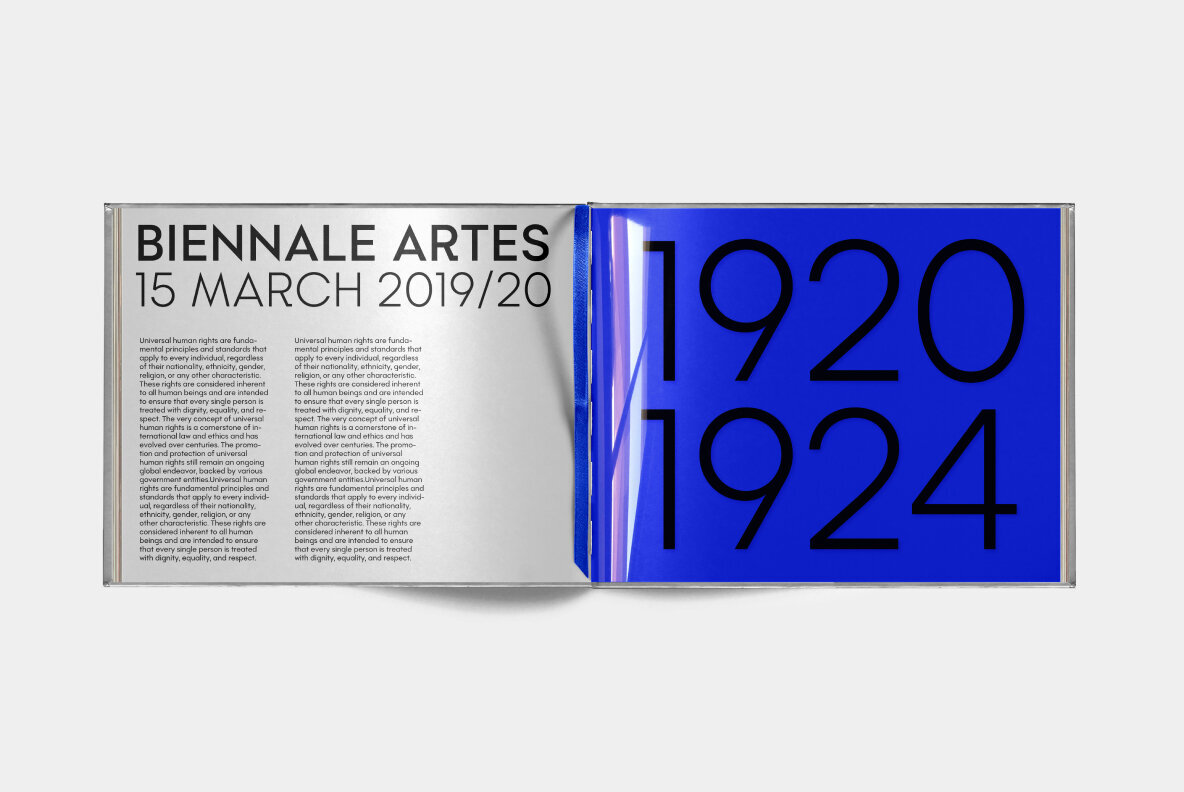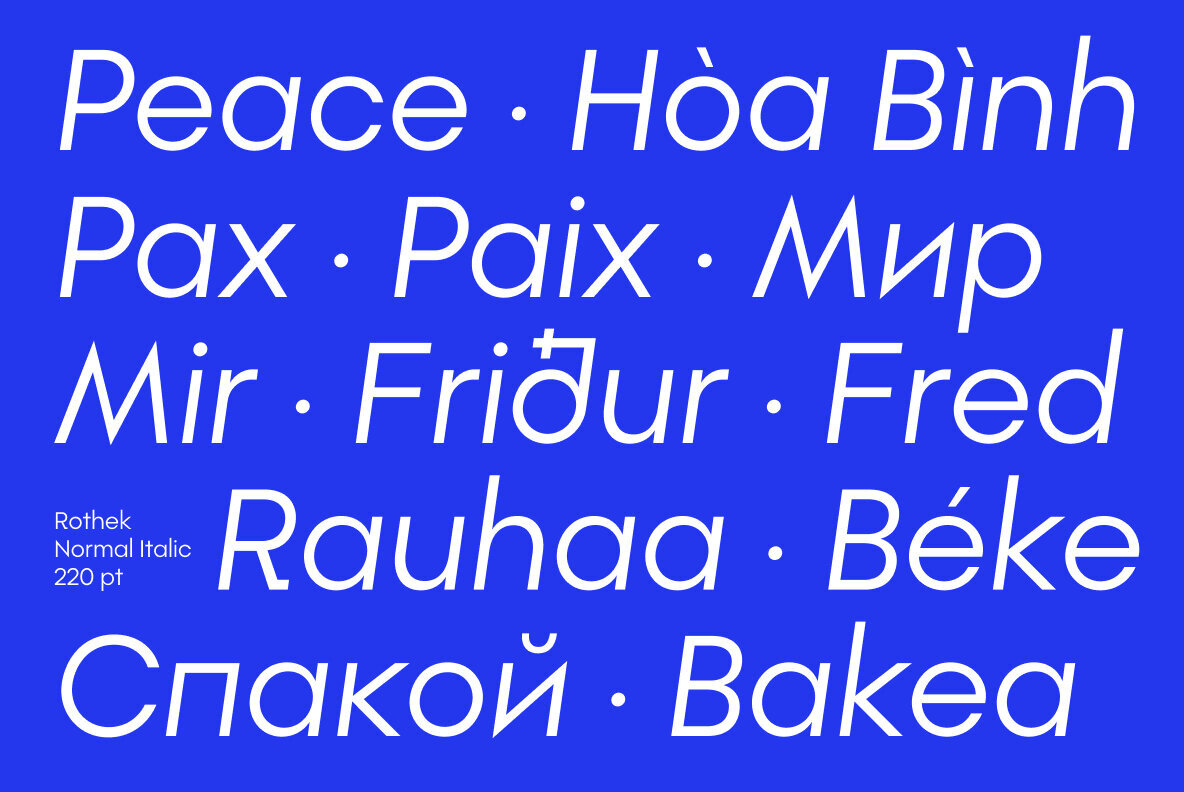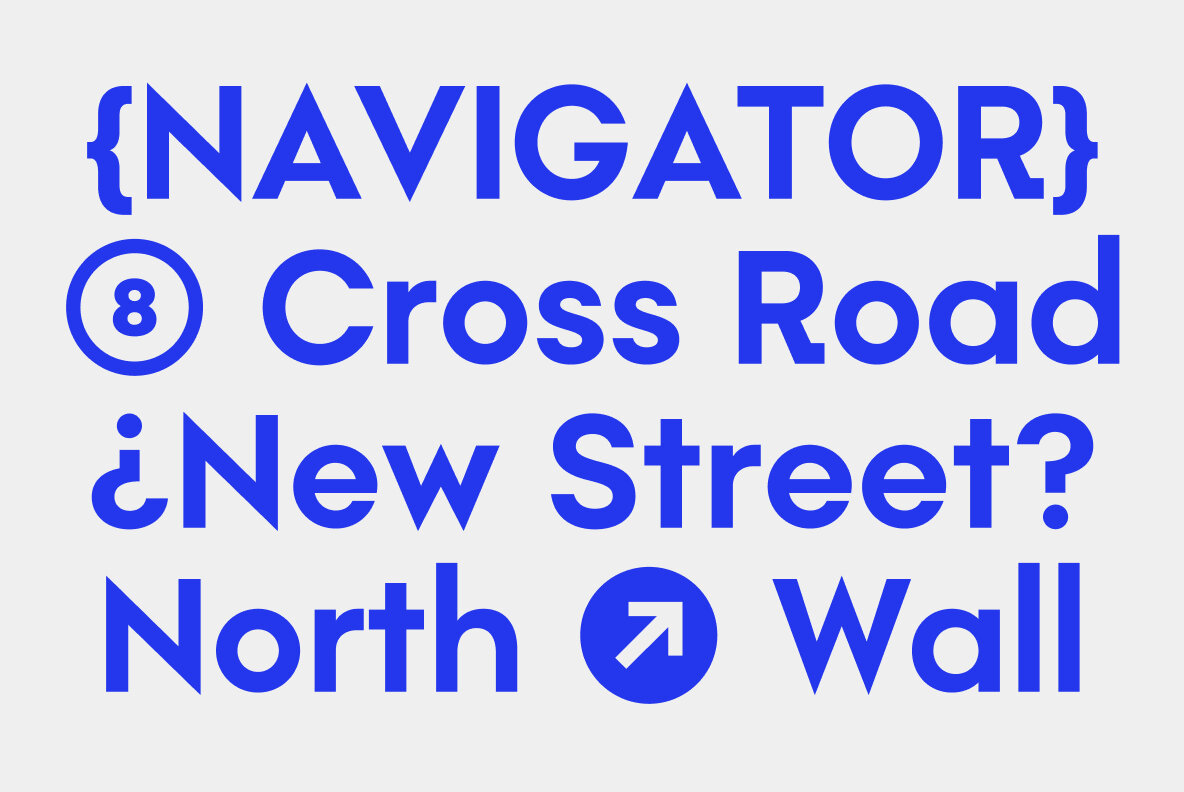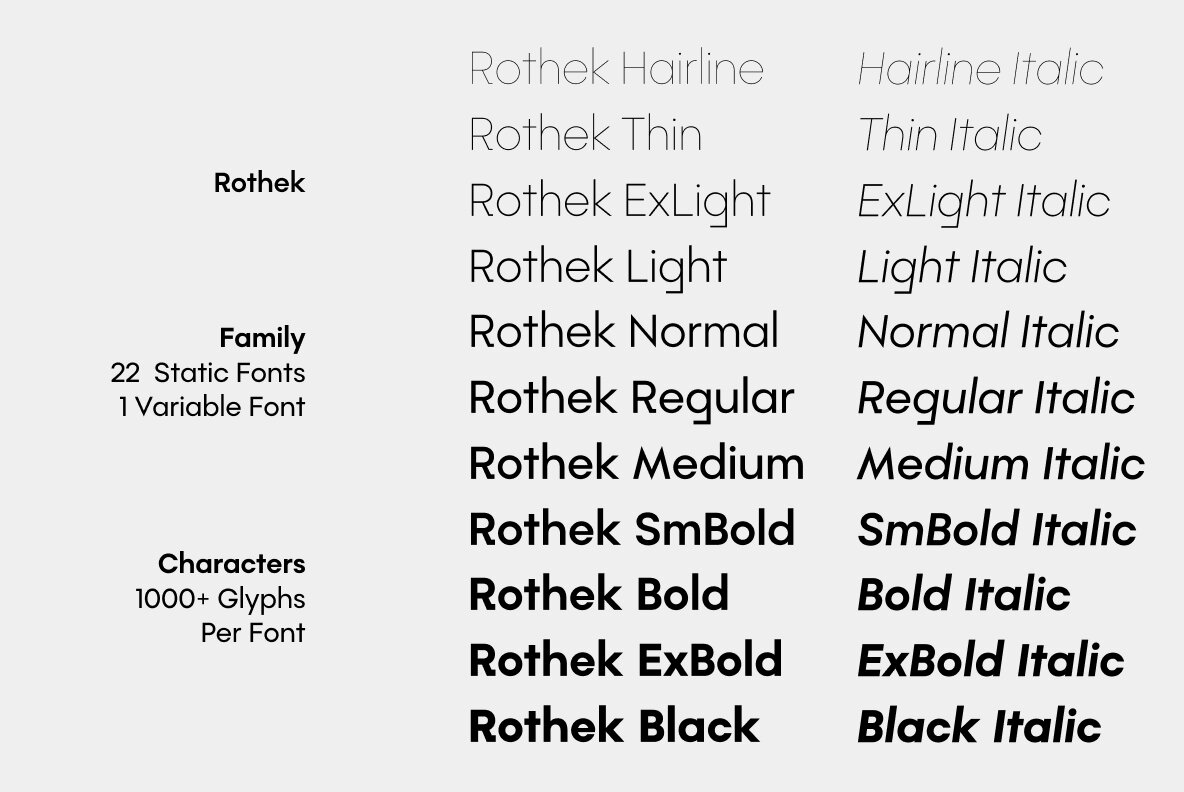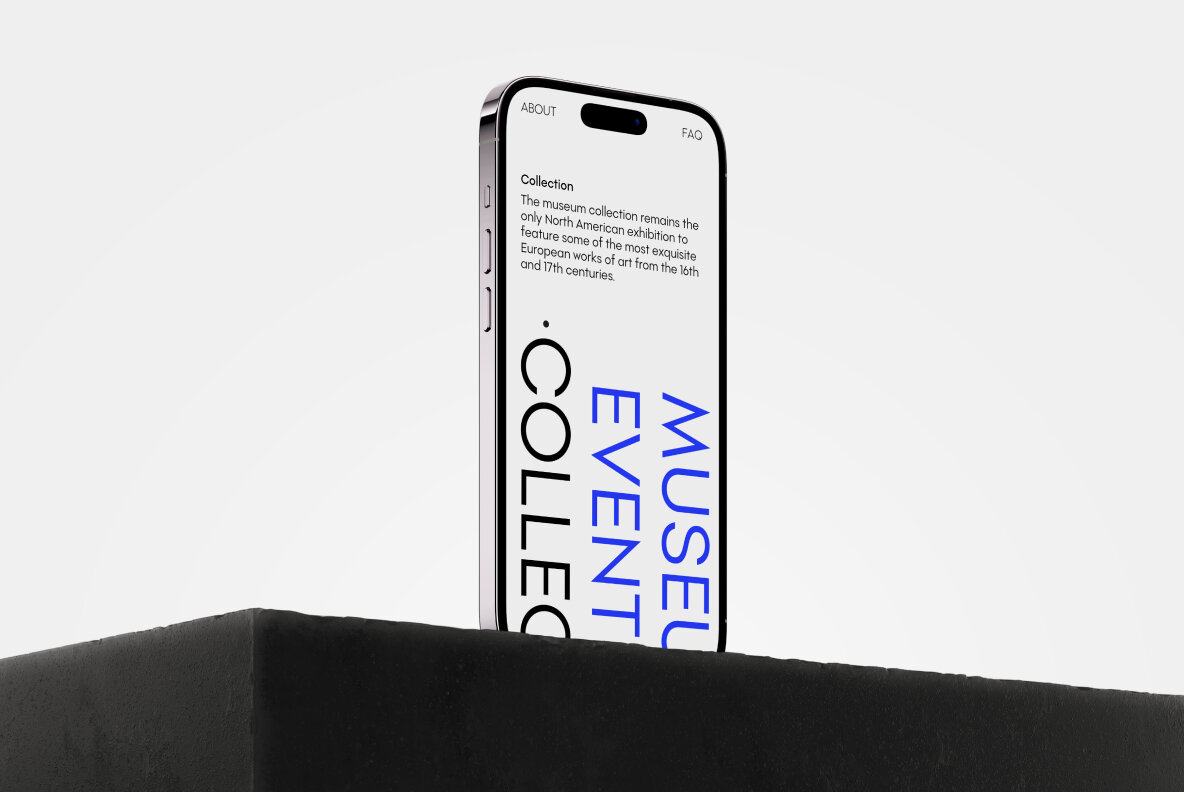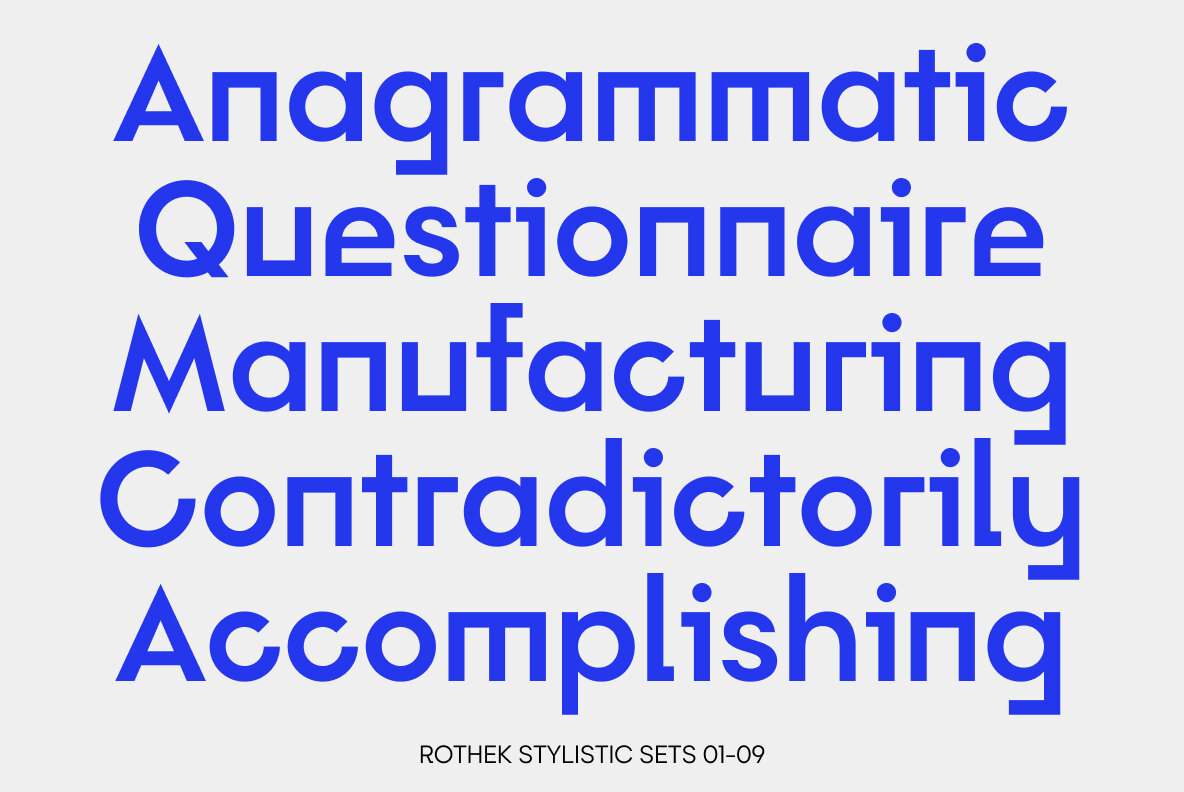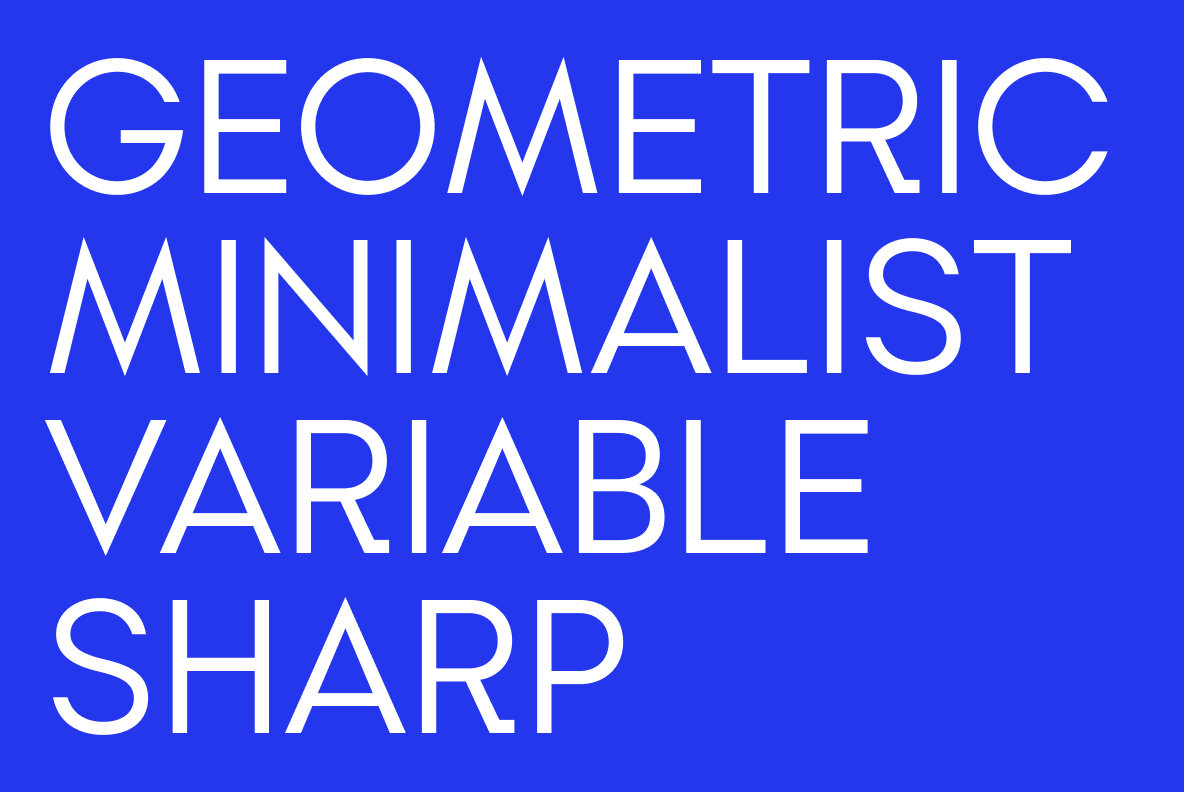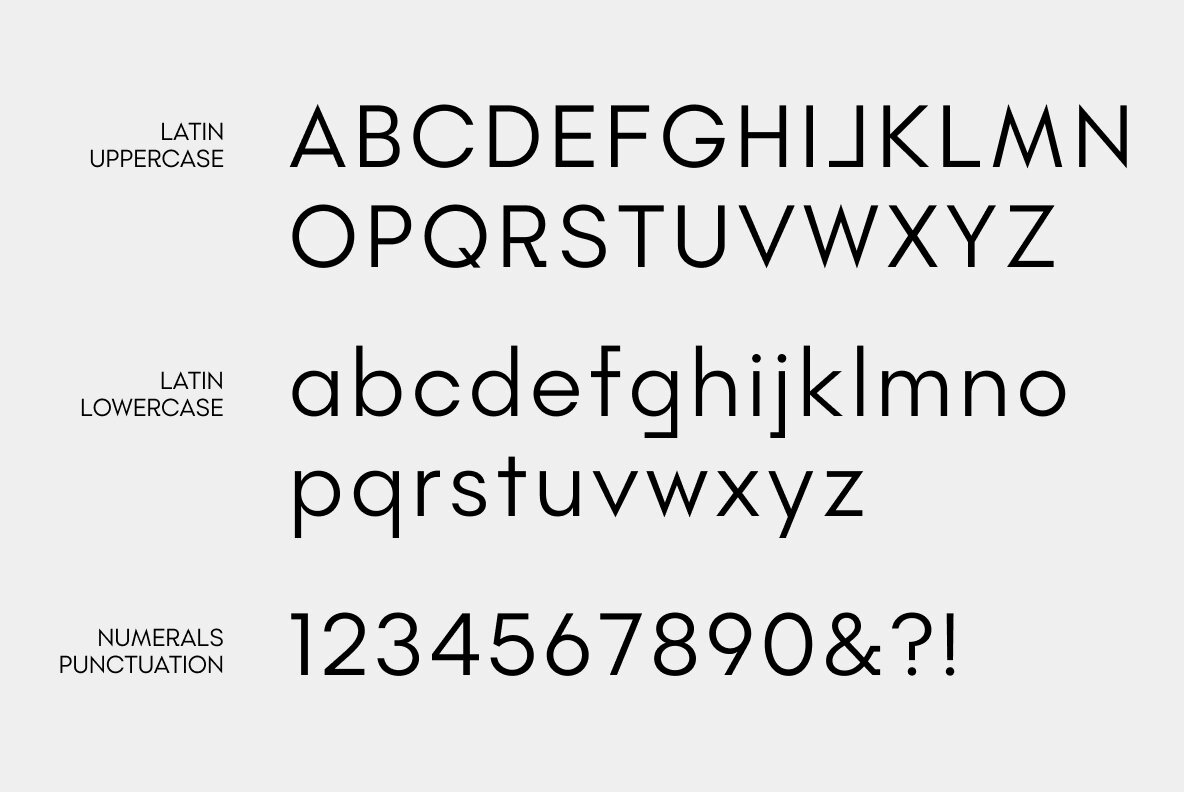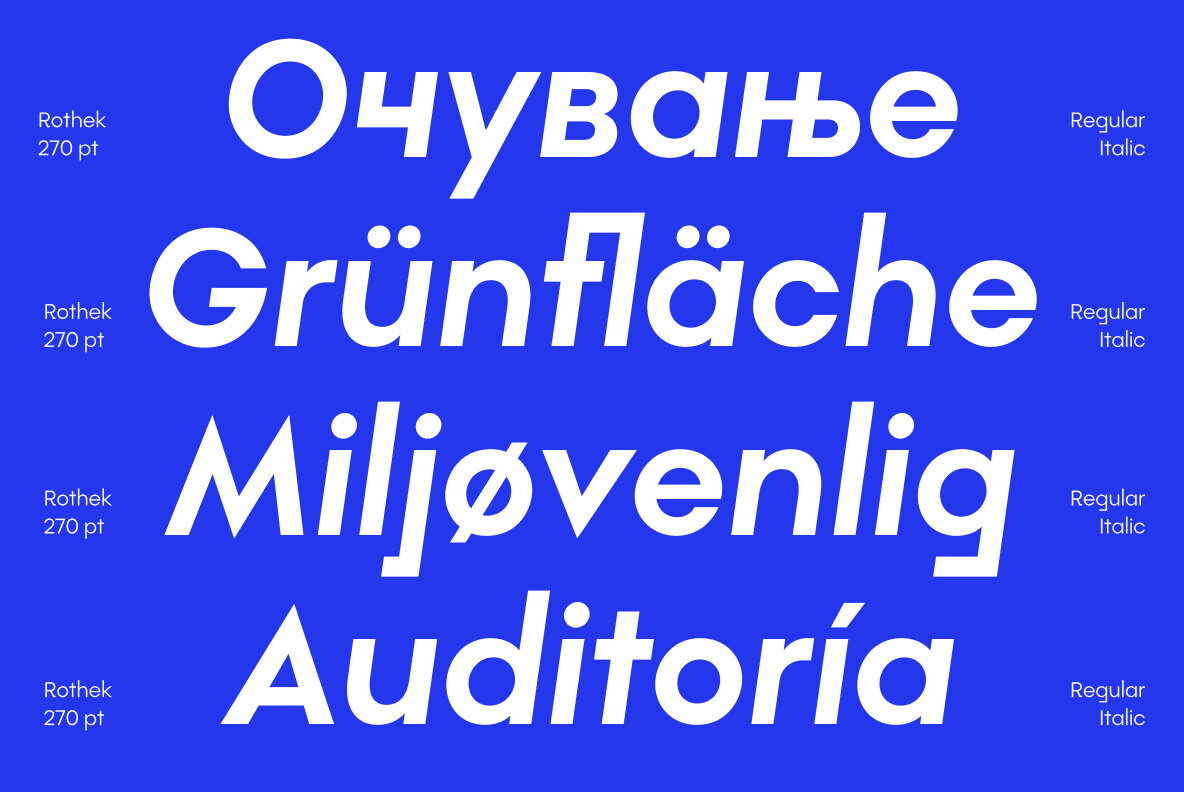
Rothek Font
Rothek is defined by its strong and unique character. It comes in 21 styles — 10 uprights and 10 italics and 1 variable font — and is a perfect tool for any designer who needs a versatile font for a variety of projects. While retaining its uniqueness and whimsicality, Rothek is highly legible even at smaller weights, which makes it a perfect fit for app and web design.
Rothek is a geometric sans serif type family with a strong and unique character. Rothek is defined by the interplay between strict geometric forms and subtle curves. Rothek's wide selection of styles (from Thin to Black) make it suitable for a large variety of projects.
- 1 Variable Font
- 20 Static Fonts (10 Upright + 10 Italic)
- 1000+ glyphs per font
- Extended Latin + Cyrillic
- Multiple Stylistic Sets
- Case-Sensitive Punctuation
- Various OpenType Features
- Standard Ligatures
- Stylistic Alternates
Rothek supports 200+ Latin based languages (including all European languages) as well as major Cyrillic languages. OpenType features are: Localised Forms (locl), Subscript (subs), Inferiors (sinf), Superscript (sups), Numerators (numr), Denominators (dnom), Fractions (frac), Ordinals (ordn), Tabular Figures (tnum), Oldstyle Figures (onum), Case-Sensitive Forms (case), Ligatures (liga), and Stylistic Sets (ss01-ss12).
1. Two new weights (Hairline and Hairline Italic)
2. Improved outlines
3. New glyphs (currencies, punctuation)
4. Improved figures/numerals
5. Improved Serbian Cyrillic
6. Better and more consistent kerning
7. New tabular characters (period, comma, space, etc.)
8. Countless minor improvements